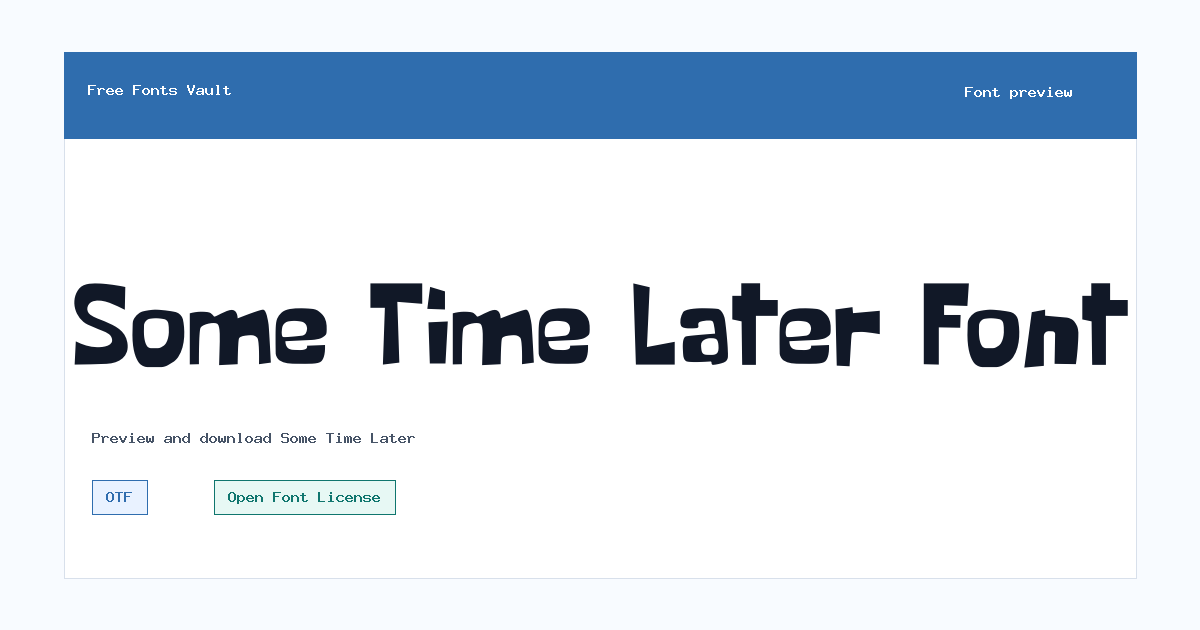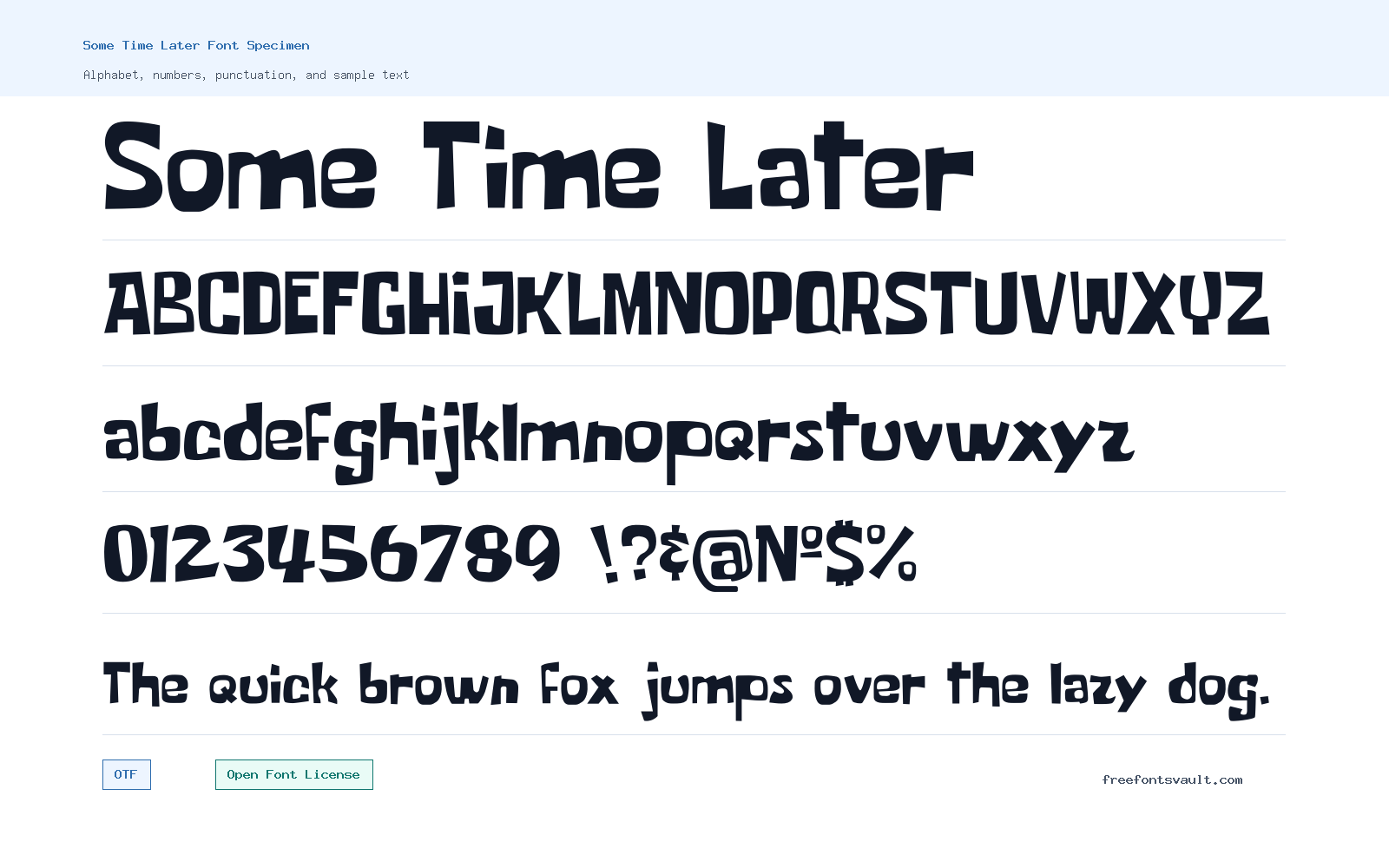
Some Time Later
Some Time Later is a lively display face with irregular, hand-made energy and a large set of expressive shapes. This page reviews the exact local file mapped to the catalog and links the project and OFL records used for the source check. Replace the sample text with the actual phrase from your design, because the visual rhythm depends heavily on word length, capitalization, and the space between letters.
How Some Time Later reads
The outline and interior shapes create a playful texture that is strongest in a short headline. Each word has an illustrated quality, so individual letter combinations deserve attention before export. Test a phrase with rounded letters, a line containing punctuation, and a two-line heading. The face can carry a lot of personality, but that personality works best when the message is brief and the surrounding layout gives it room.
Use Some Time Later for themed display graphics, playful event headings, illustrated titles, and short social artwork. Pair it with a direct sans serif for dates, calls to action, and any descriptive copy. It is not a substitute for small body text or compact navigation, where its decorative rhythm would reduce scanning speed.
Try one to four words, then a two-line phrase. Test a plain background first so you can see the drawing clearly. If you add an illustration or texture later, keep enough contrast that the word shape stays readable on a phone.
Is Some Time Later suitable for a logo?
It can work for a short themed title or campaign lockup when the wording remains brief and clear.
Should I use it for small labels?
No. A simple text face will be easier to read at small sizes.